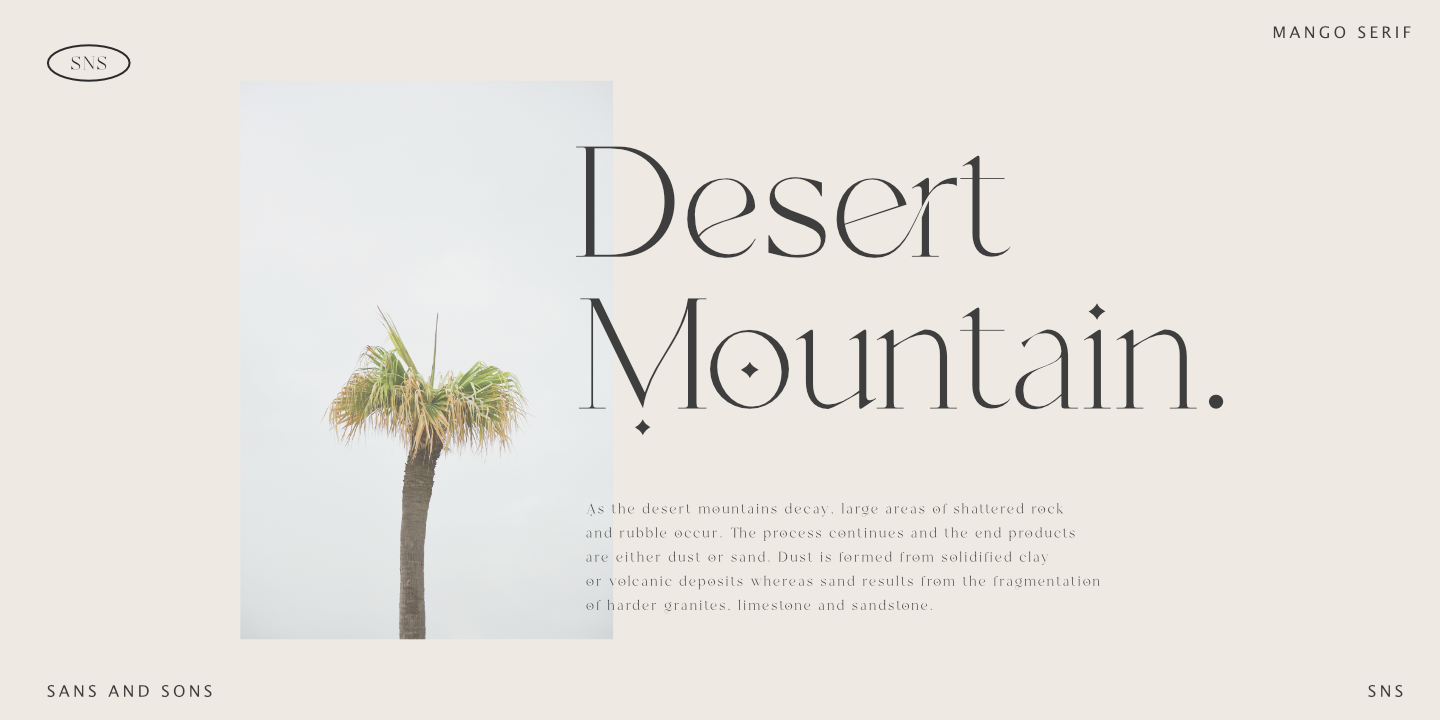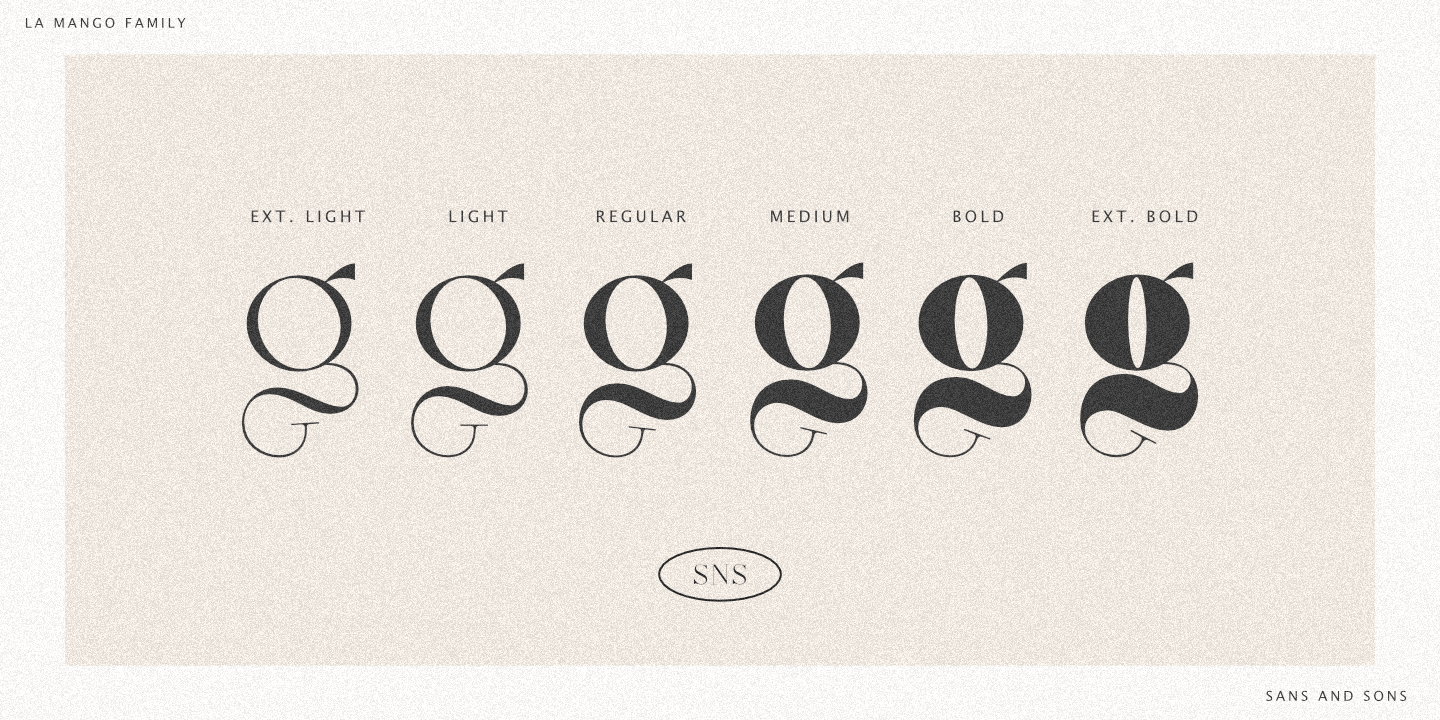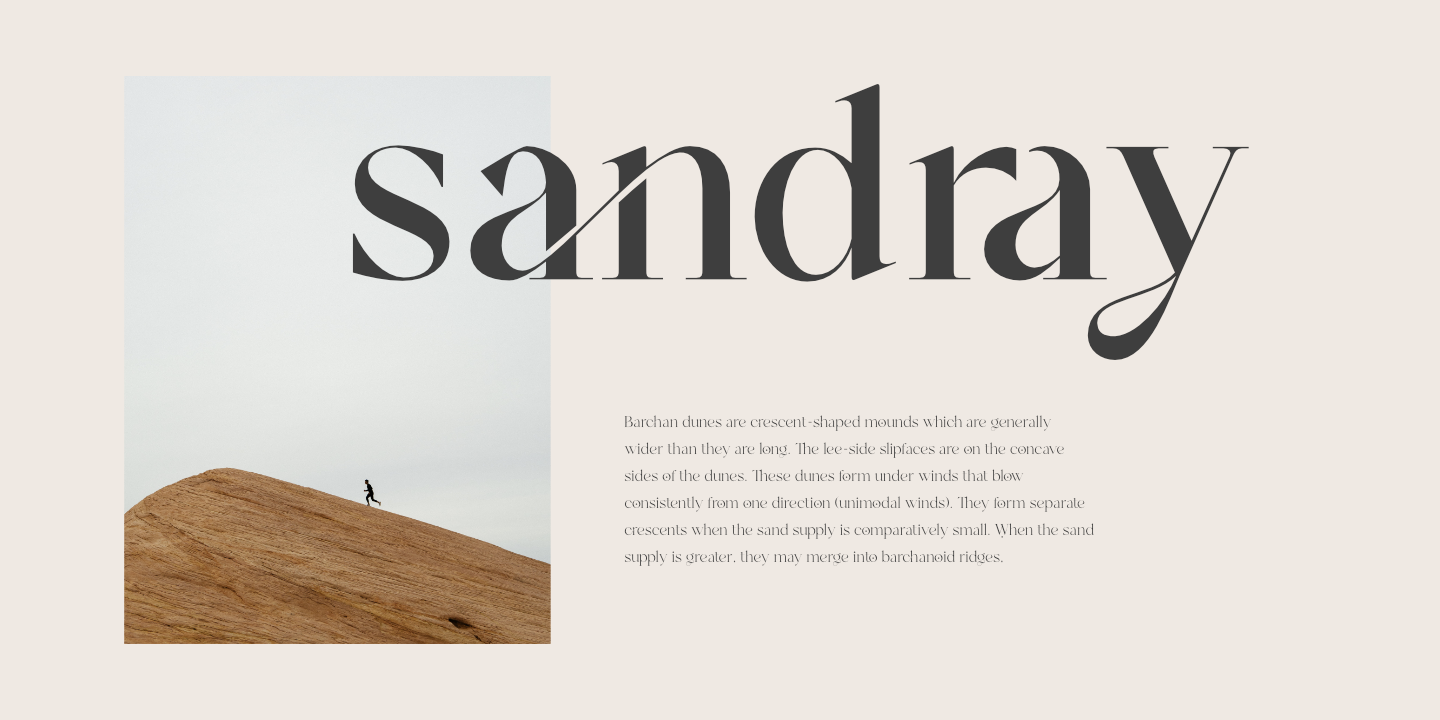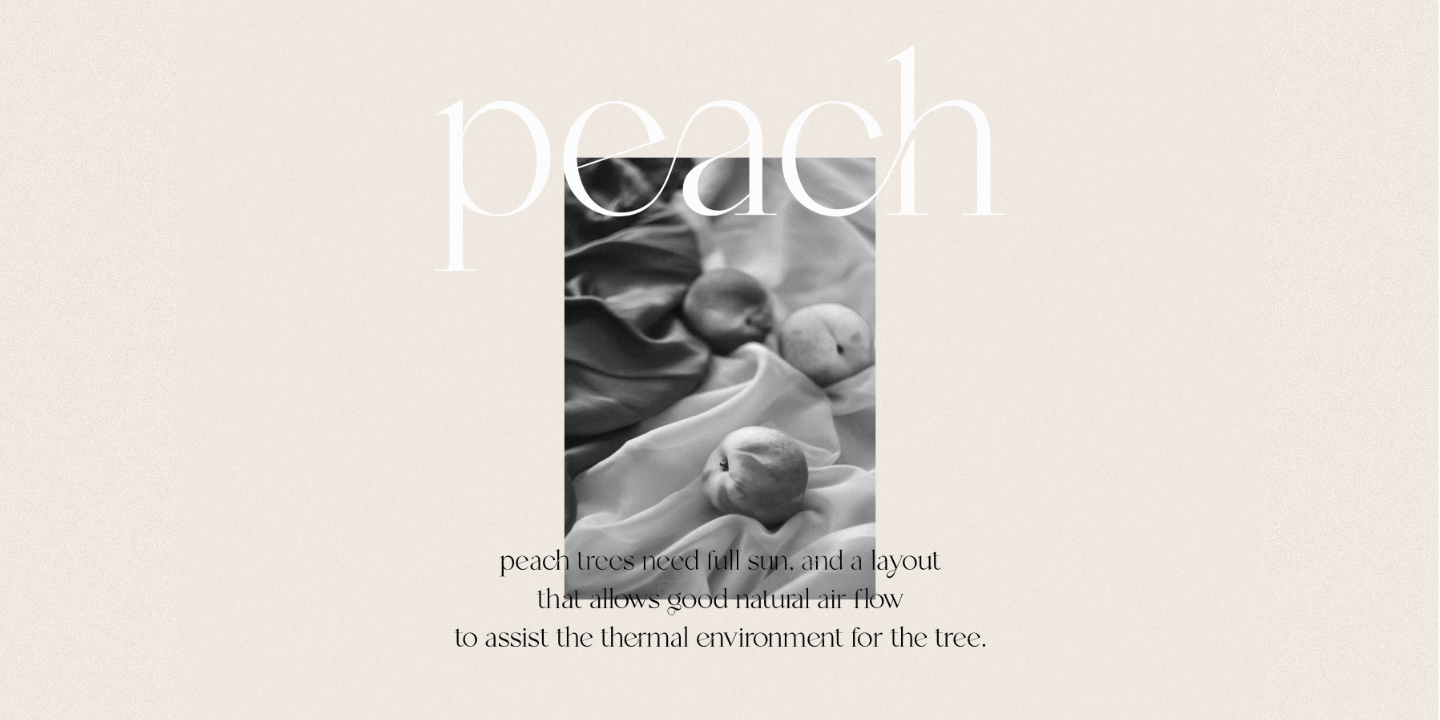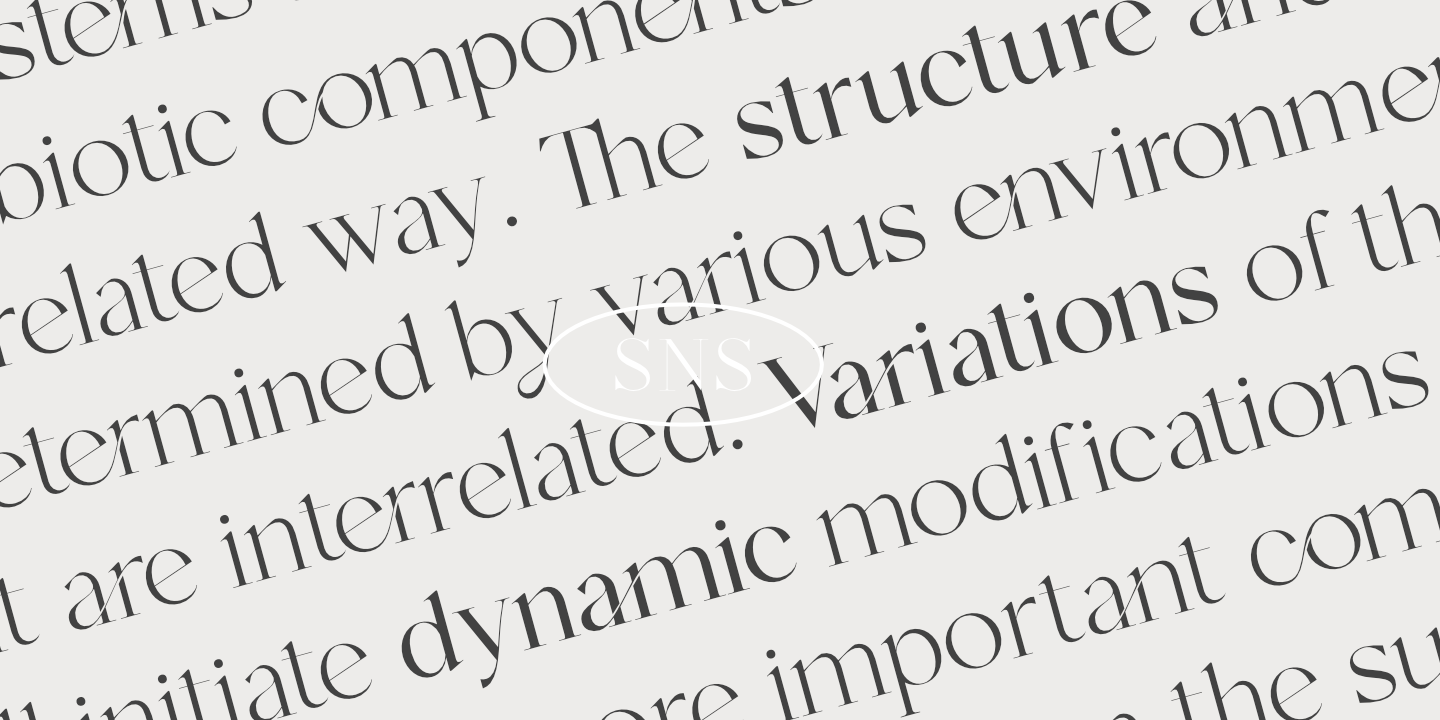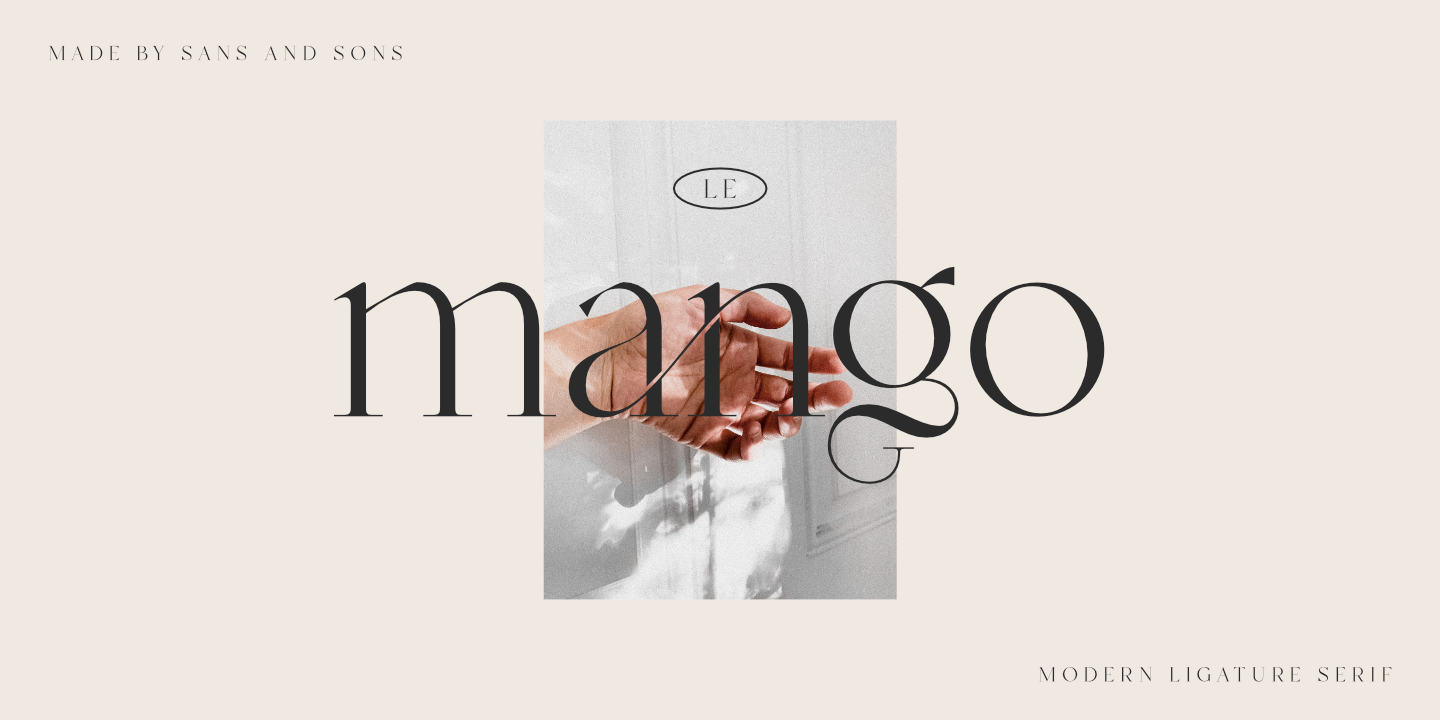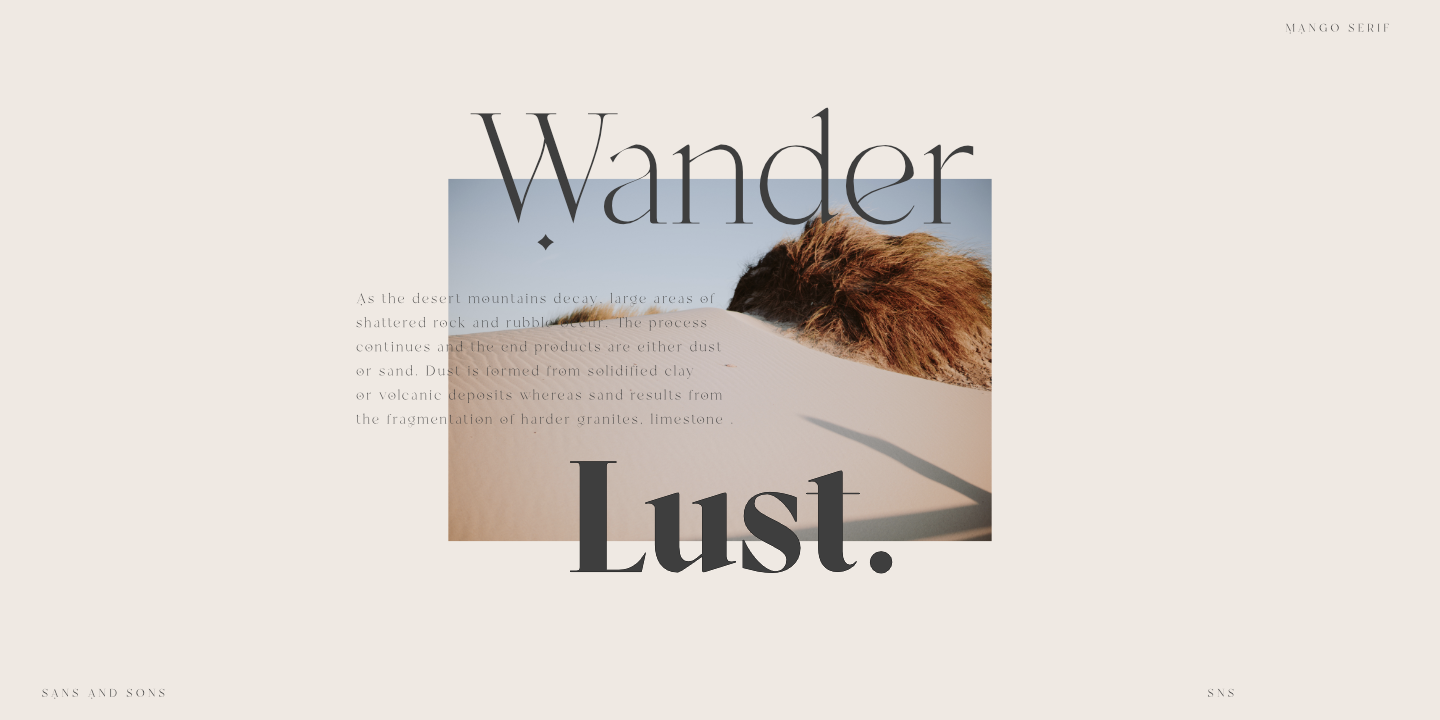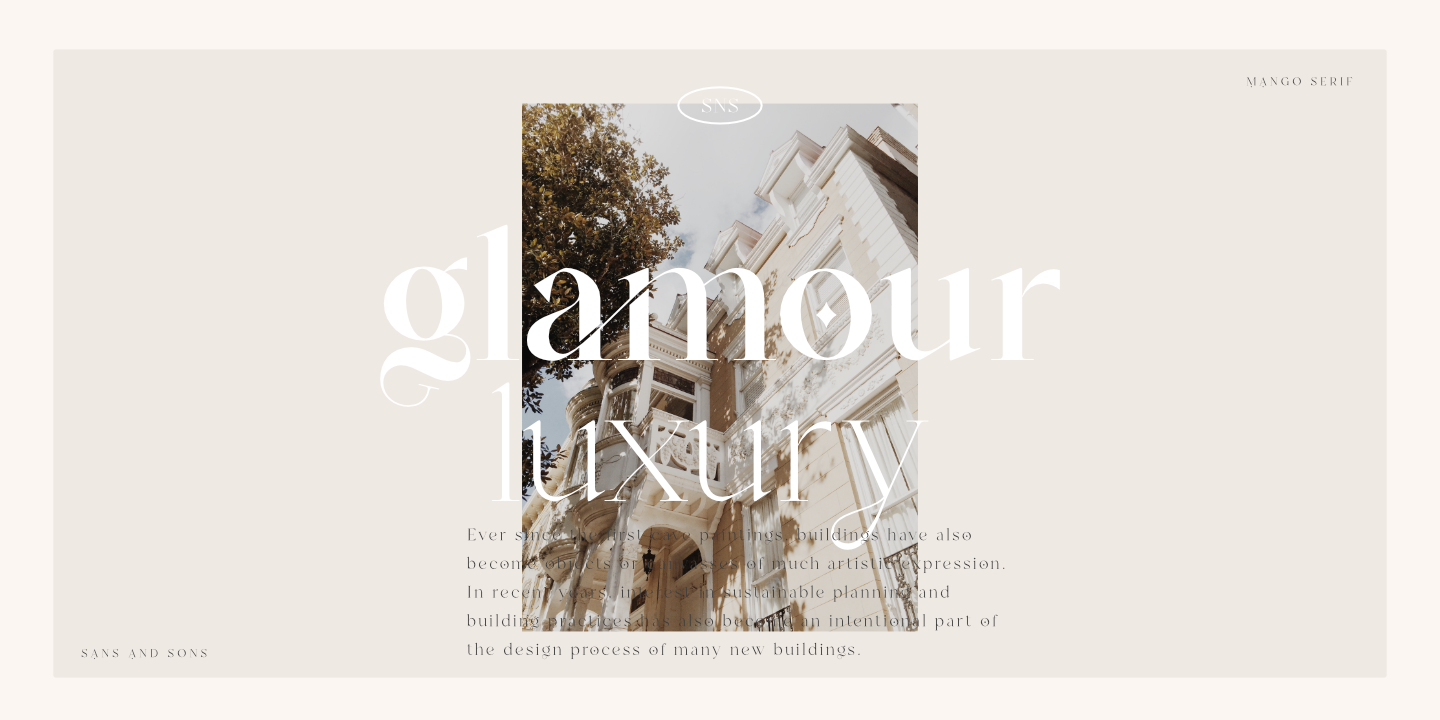
La Mango Complete Family
6种字体风格
Le Mango, a Modern Ligature Serif with Elegant Style.
Le Mango is a high contrast typeface so delicate, legible and lend themselves to high end branding, logo designs, product packaging, invitation & masterhead designs.